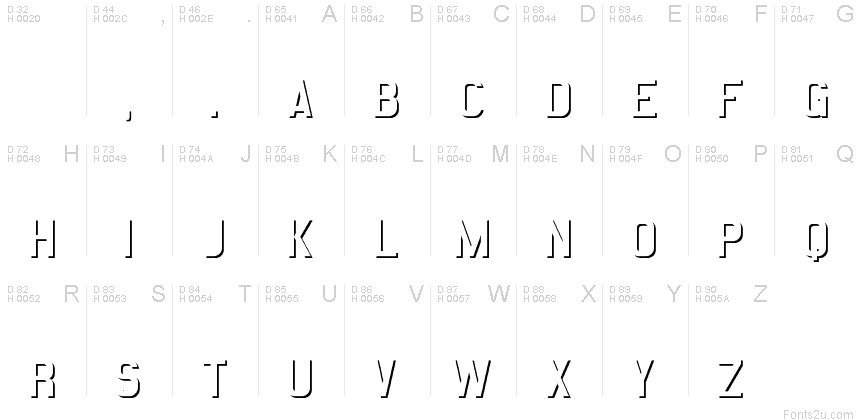
Emboss Statement Regular
The three fonts available here are Sans Statement, Shadow Statement and Emboss Statement.
They can all be used on their own, however, another possible use of the Emboss variation is to enable to creation of a customised 'shadow' version that allows users to apply a different colours to the characters and shadow. Please see the image below for an example of how this might work.
This will require a little experimentation with the tracking and/or kerning, but it's worth it for the additional flexibility.